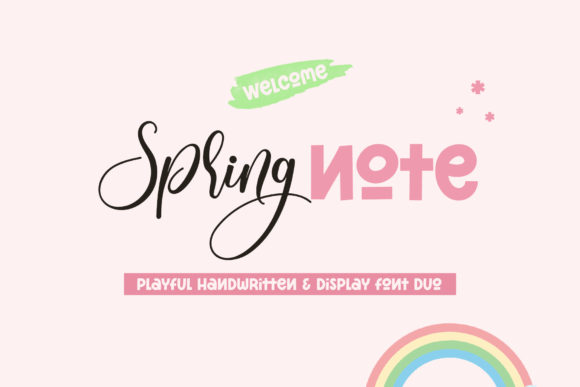
Spring Note: A Simple, Bouncy Duo Font for Creative Designs
Finding a typeface that feels both fresh and familiar can instantly elevate a project. That’s the charm of Spring Note, a simple and bouncy duo font combining a lively script with a clean display. Its unique character and straightforward simplicity make it a versatile choice for a wide array of design applications, from heartfelt invitations to bold branding materials.
At its core, Spring Note is a creative font package offering two complementary styles. The script component carries a handwritten, energetic flow, perfect for adding a personal, organic touch. Paired with it, the display font provides clarity and structure, ideal for headlines and supporting text. This combination allows for remarkable design flexibility, letting you craft layouts with built-in visual harmony without the guesswork of font pairing.
Where This Typeface Truly Shines
The practical value of a font like Spring Note is best seen in real-world use cases. Its bouncy, approachable vibe makes it particularly effective for projects aiming for a friendly, artisanal, or celebratory feel.
- Invitations & Stationery: The script is a natural fit for wedding invitations, greeting cards, and event programs, adding a touch of elegance and warmth.
- Branding & Logo Design: For businesses in the lifestyle, boutique, or food industries, Spring Note can help create a memorable brand identity that feels authentic and welcoming.
- Merchandise & Packaging: Its standout style works beautifully on t-shirt designs, sticker sheets, product labels, and packaging, ensuring your goods look polished and professional.
- Digital Content: Use it to design eye-catching social media graphics, blog headers, or promotional posters that need to grab attention quickly.
Tips for Using This Font Effectively
While Spring Note is designed for ease of use, a few thoughtful considerations will help you get the most out of this premium font. Always test the display style for body text or longer passages to ensure readability at smaller sizes. Its playful nature means it pairs well with simple sans serif or serif fonts for contrast, creating a balanced and modern typography hierarchy.
Consider the mood of your project. The bouncy, handwritten quality is fantastic for conveying joy, creativity, and informality. It might be less suited for highly corporate or serious contexts. Before starting, review the full character set and any available stylistic alternates to explore all your creative options. Finally, always confirm the license covers your intended use, whether for personal projects or commercial work, to use this design asset with confidence.
Choosing the right typeface is a foundational step in creating cohesive and professional-looking work. A well-crafted font like Spring Note does more than just display words—it contributes to the story, mood, and overall visual consistency of your design. By matching the font’s personality to your project’s goals, you enhance brand recognition and create a more engaging experience for your audience.